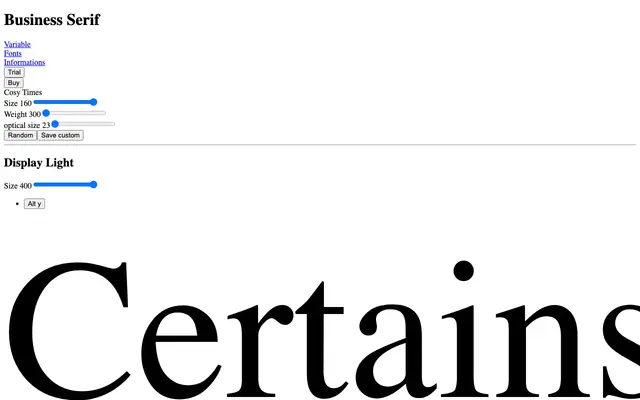
Business Serif
A variable serif from Pizza Typefaces with optical size and weight axes, moving between a light display cut and denser text settings.
Business Serif ships as a variable font with at least two primary axes: weight and optical size. The optical size axis shifts the design between a refined display setting at lighter weights and a more robust text configuration at higher optical sizes. The specimen leans into long-form editorial contexts, suggesting a face built to perform across both headline and body copy within a single file.
The specimen shows a variable serif with optical size and weight axes, spanning light display cuts to heavier text weights, consistent with a transitional serif designed for editorial range across sizes.